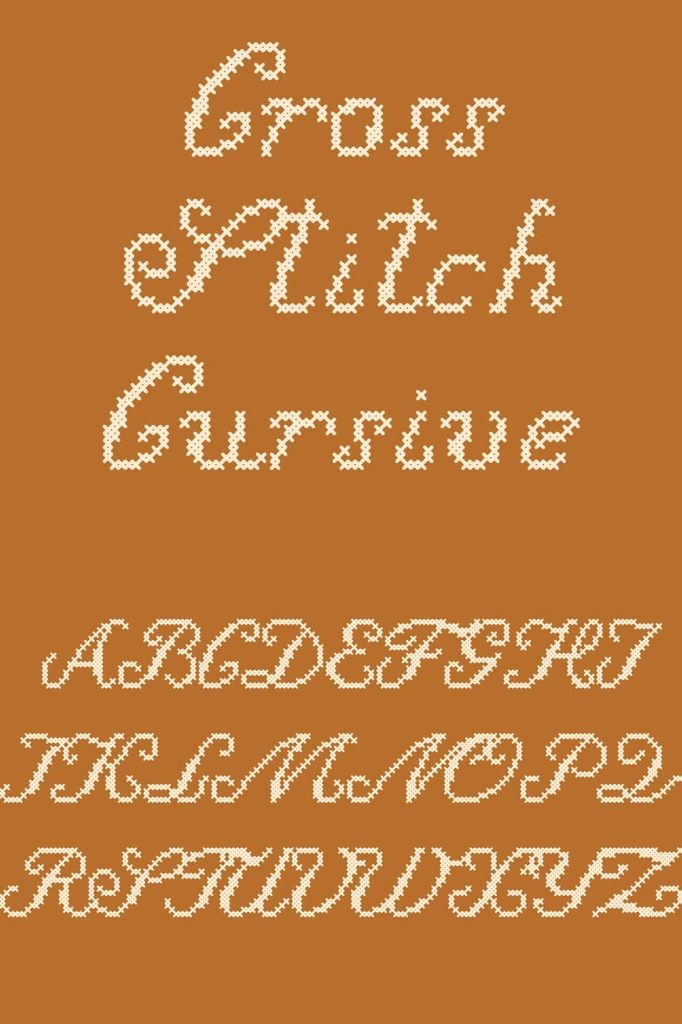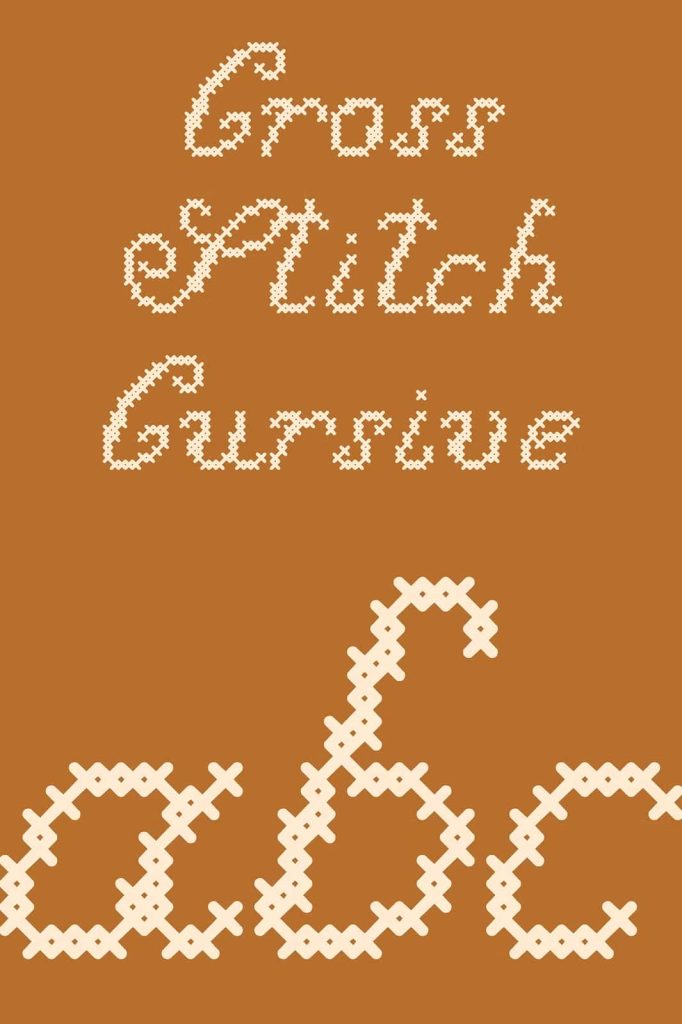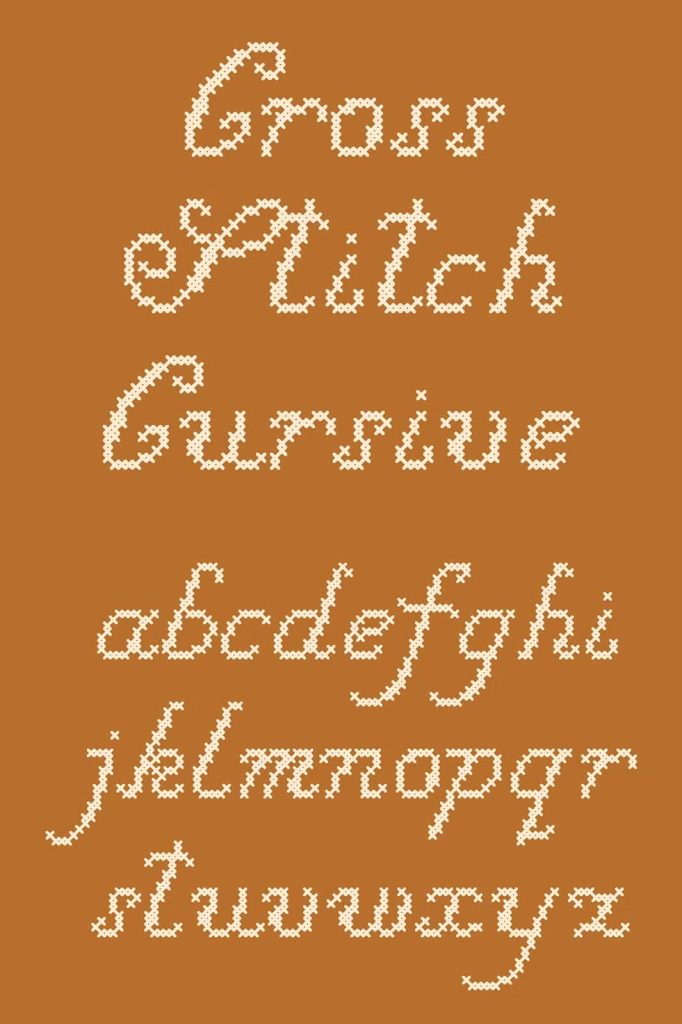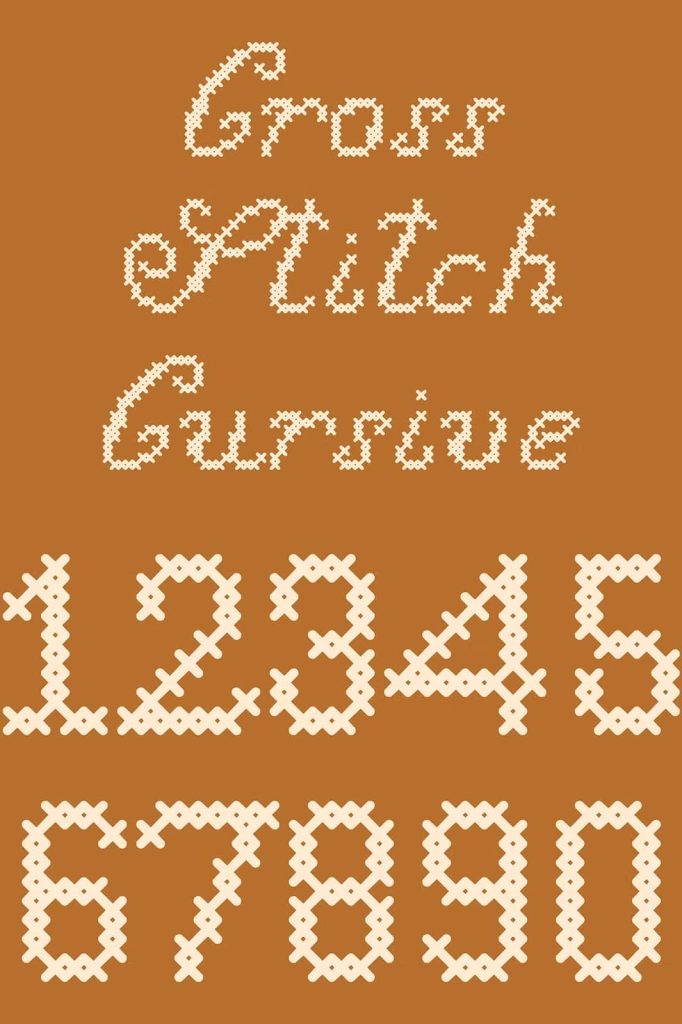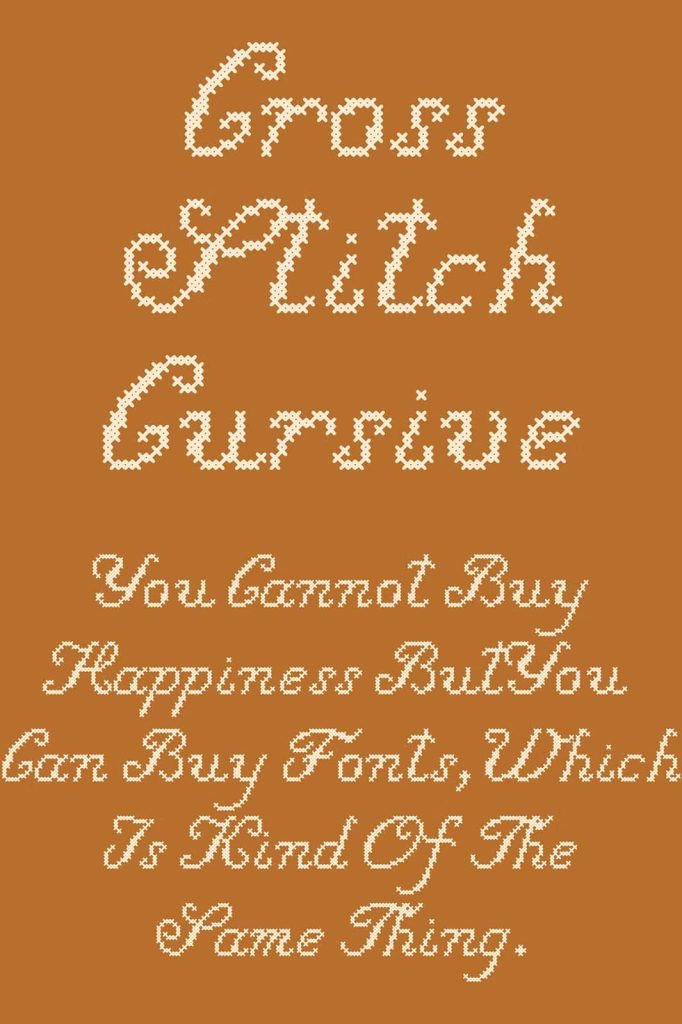
Cross Stitch Cursive Font
The Cross Stitch Cursive font brings the charm of traditional embroidery into modern digital design. This decorative typeface recreates the appearance of real cross stitched lettering, allowing designers, artists, and creators to produce artwork that feels handmade and textured. By combining the elegance of cursive writing with the recognizable pattern of cross stitching, this font delivers a unique visual style that works beautifully across many creative projects.
Designers often search for fonts that add personality and warmth to their work. The Cross Stitch Cursive font achieves this by replicating the familiar stitched pattern seen in embroidery and needlecraft. Each letter appears carefully stitched together, forming flowing cursive characters that maintain readability while preserving the handcrafted look. The result is a font that feels both artistic and authentic.
Designed to Replicate Authentic Cross Stitch Lettering
The main purpose of the Cross Stitch Cursive font is to simulate the appearance of real cross stitch embroidery. Instead of smooth digital curves, the characters use small “stitched” shapes that imitate thread crossing over fabric. This design approach gives every word a crafted and decorative look.
Cursive lettering naturally adds elegance and movement to typography. When combined with the cross stitch pattern, it creates a font that feels personal and creative. Designers can use it to evoke the feeling of handmade craft projects without needing to physically stitch the letters themselves.
Because the letters connect smoothly like traditional cursive handwriting, the font maintains readability even while displaying detailed stitched textures. This balance makes it ideal for both decorative and functional design purposes.
Perfect for Posters, Art Prints, and Creative Displays
One of the most popular uses of the Cross Stitch Cursive font is for decorative prints and posters. The stitched effect gives artwork a cozy, handcrafted atmosphere that works well in home decor, craft-themed graphics, and vintage-inspired projects.
Artists frequently use this font to design wall art, printable quotes, greeting posters, and typography-based illustrations. The embroidery-inspired style adds a distinctive visual element that stands out compared to standard script fonts.
For art prints, the font works particularly well when paired with soft color palettes or textured backgrounds that resemble fabric. These combinations reinforce the stitched aesthetic and create designs that feel warm, nostalgic, and inviting.
Great Choice for Signage and Craft-Themed Branding
The Cross Stitch Cursive font also works effectively in signage and branding materials that emphasize creativity or handmade craftsmanship. Businesses related to sewing, knitting, embroidery, crafting supplies, or DIY products can use this font to reinforce their visual identity.
When used in shop signs, product labels, or packaging, the stitched lettering immediately communicates a craft-inspired theme. Customers associate the visual style with handmade quality, patience, and artistic detail. This makes the font an excellent option for brands that want to highlight creativity and traditional craft culture.
Signage created with this font also captures attention because the cross stitched effect feels different from typical commercial typography. The letters appear carefully crafted, giving signs a friendly and approachable personality.
Enhance Digital and Print Design Projects
The flexibility of the Cross Stitch Cursive font allows designers to use it in both digital and print media. It works well for posters, social media graphics, greeting cards, craft tutorials, printable worksheets, scrapbooking layouts, and many other creative projects.
Graphic designers can incorporate this font into themed projects where a handcrafted or homemade look strengthens the message. Whether designing seasonal decorations, hobby-related artwork, or DIY-inspired branding, the cross stitch lettering adds texture and visual interest.
Because the style blends cursive flow with stitched structure, the font performs best in headings, titles, and short decorative phrases. These applications highlight the embroidery pattern without overwhelming the viewer.
Why Designers Choose Cross Stitch Cursive Fonts
Designers often choose cross stitch styled fonts when they want typography that feels creative, warm, and personal. The Cross Stitch Cursive font captures the nostalgic beauty of traditional needlework while remaining easy to use in modern design software.
Instead of creating stitched lettering manually, designers can instantly apply this font to generate the same handcrafted appearance. This efficiency saves time while still producing visually engaging results. The font bridges the gap between classic crafting traditions and contemporary digital design.
With its decorative stitched pattern and elegant cursive structure, the Cross Stitch Cursive font becomes a valuable tool for artists who want to add a craft-inspired touch to their typography. From posters and signage to art prints and creative branding, this font helps transform simple text into expressive stitched artwork.